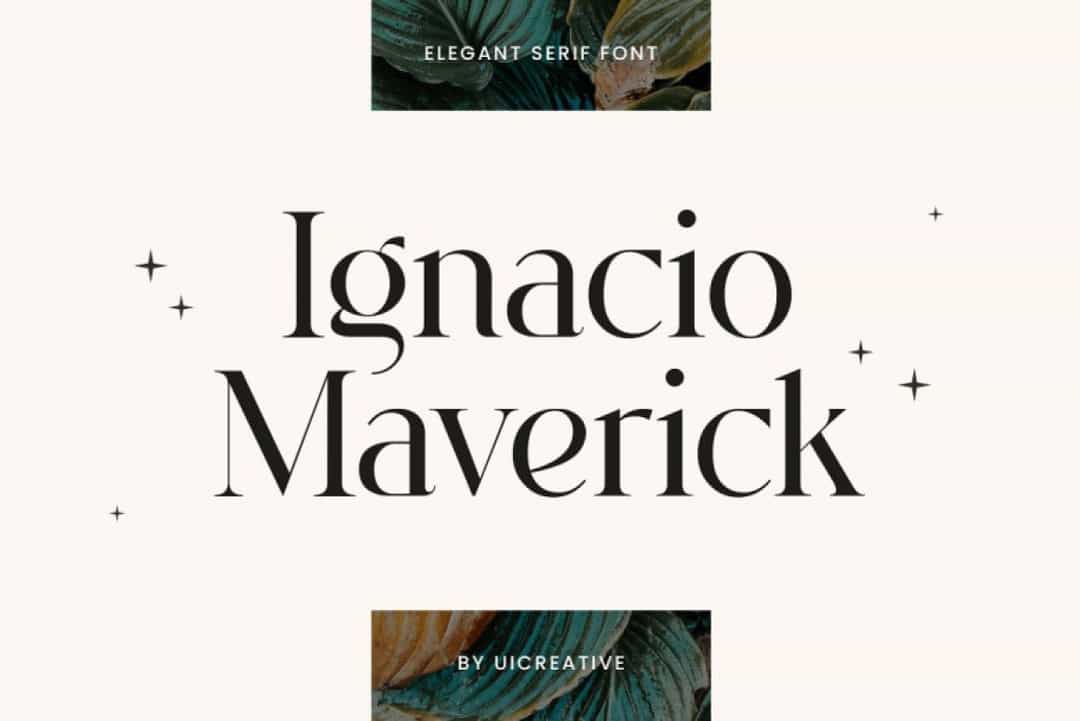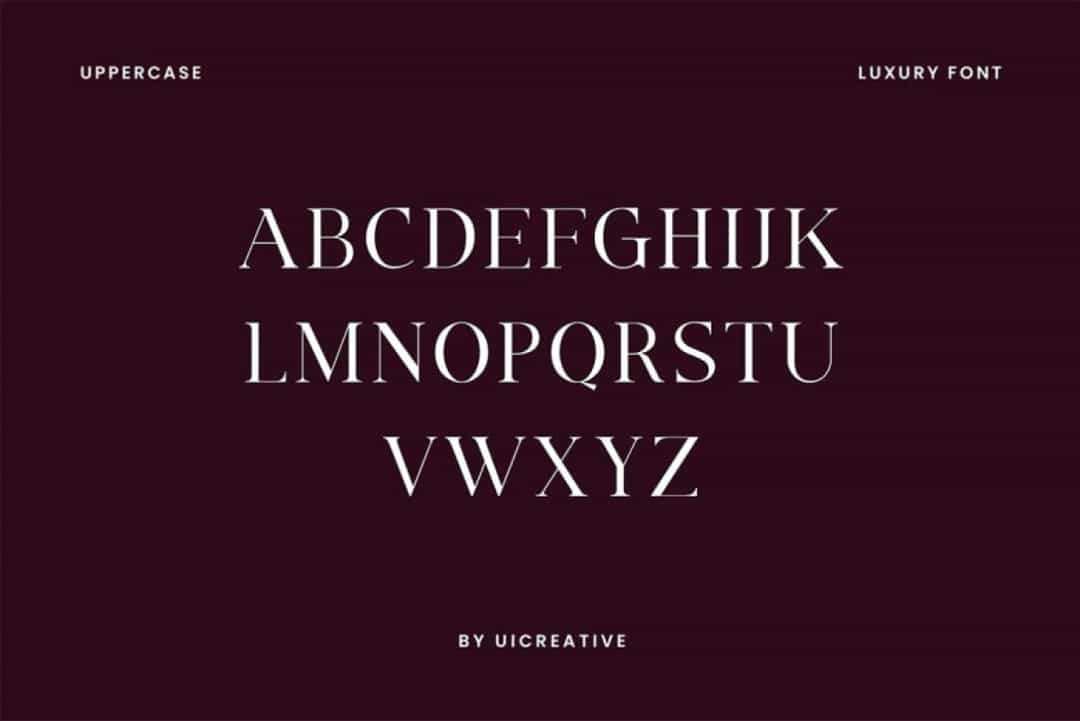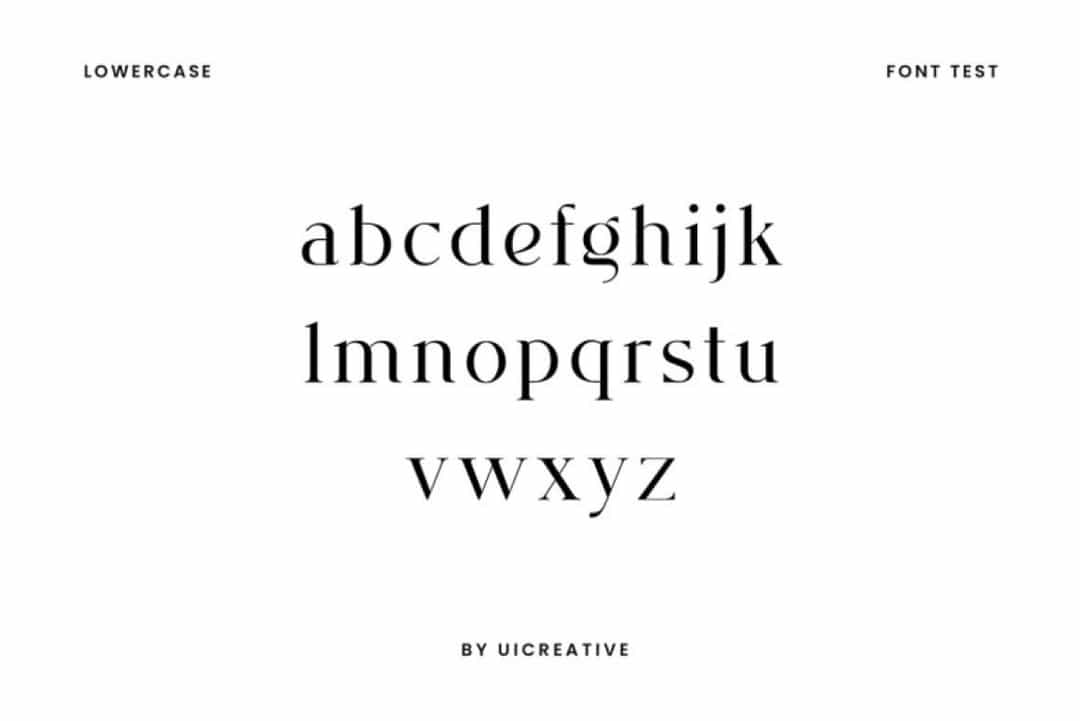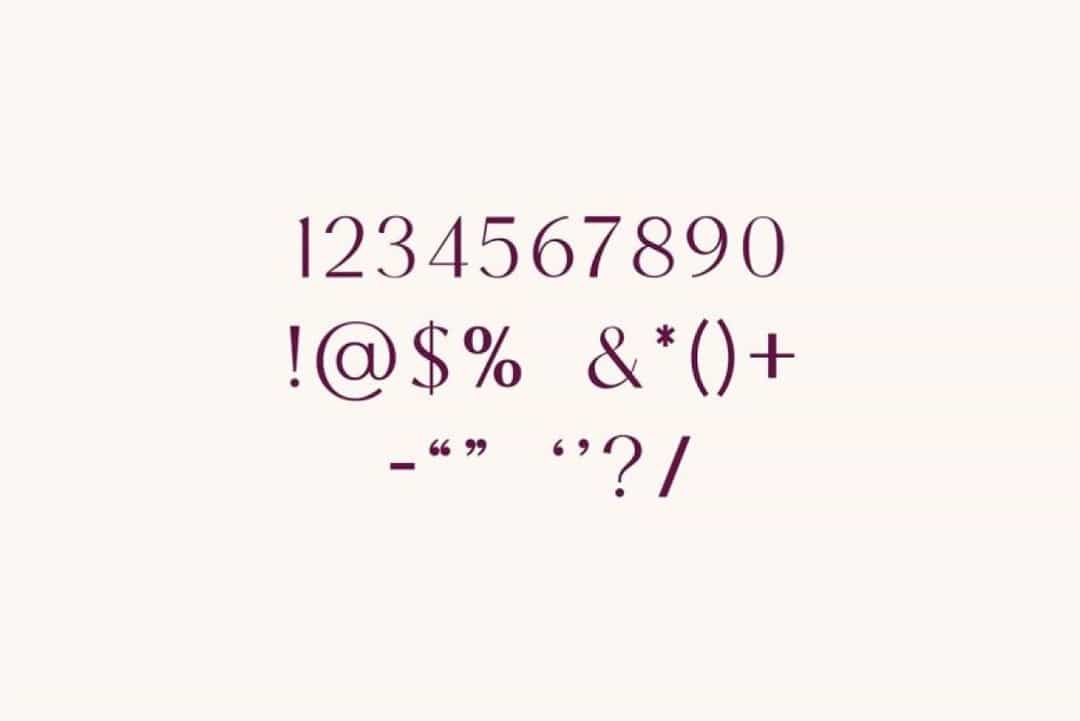
Ignacio Maverick is an elegant serif font that exudes sophistication and contemporarily, perfect for use in various applications such as logo design, signature creation, stationery wedding invitations, typography quote writing for book or magazine covers, website headers for websites hosting clothing branding or packaging design – just to name a few!